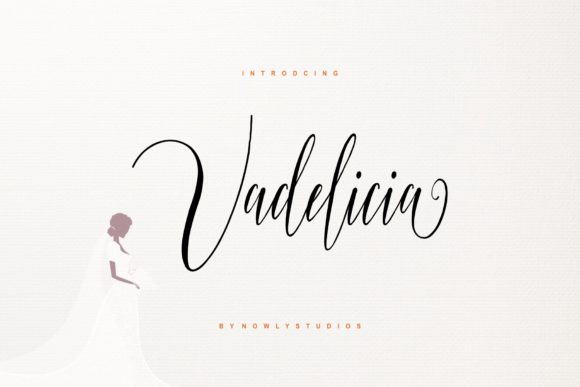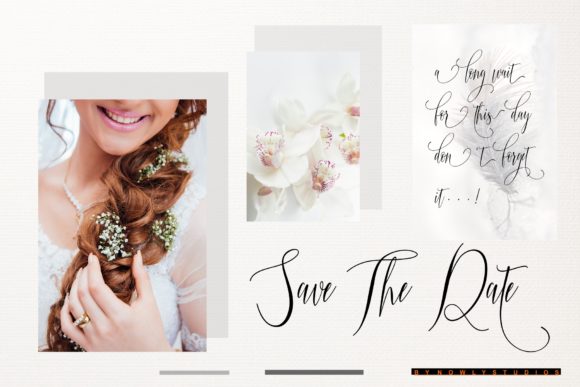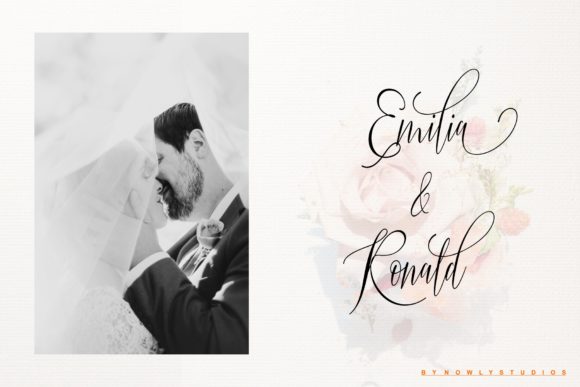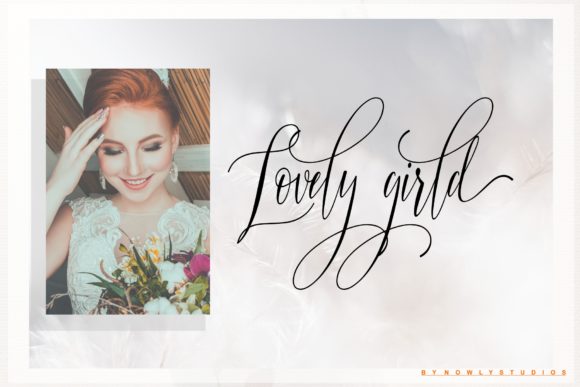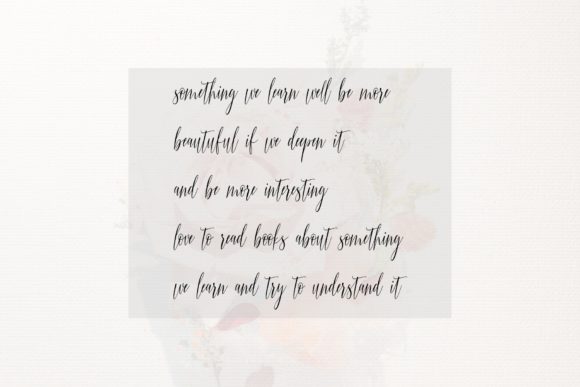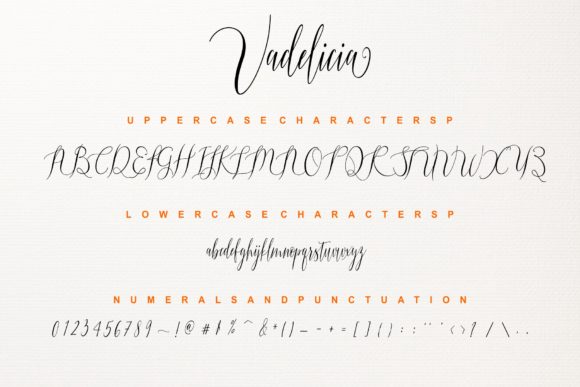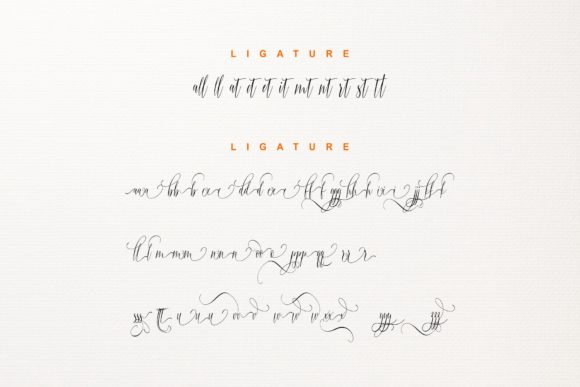
Vadelicia Script Font
About Vadelicia Script Font
The Vadelicia is a handwritten script font. It has a great readability and will add natural elegance to your designs.